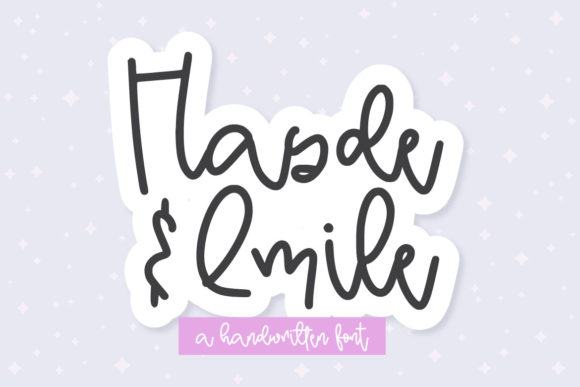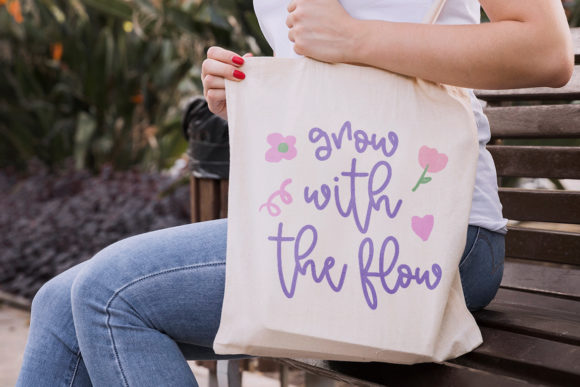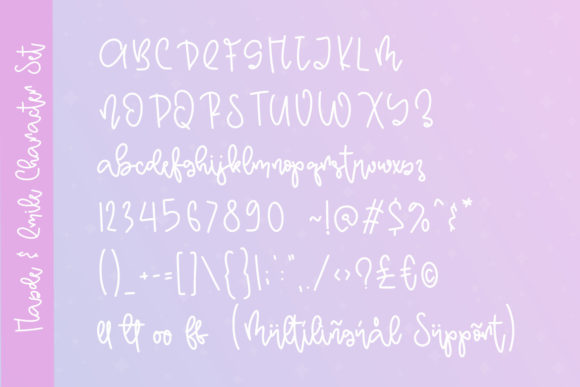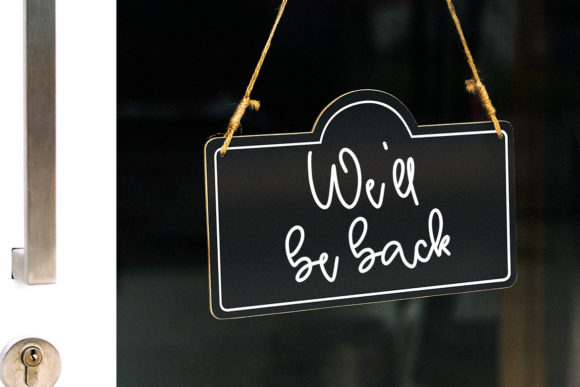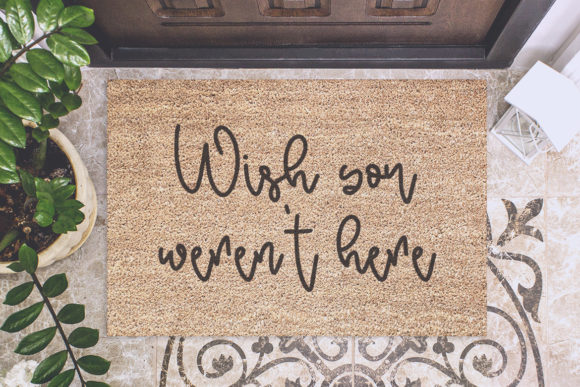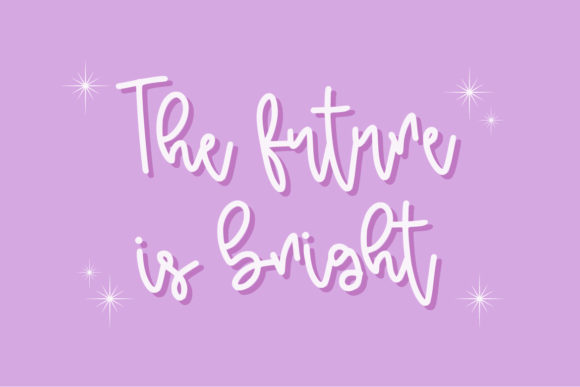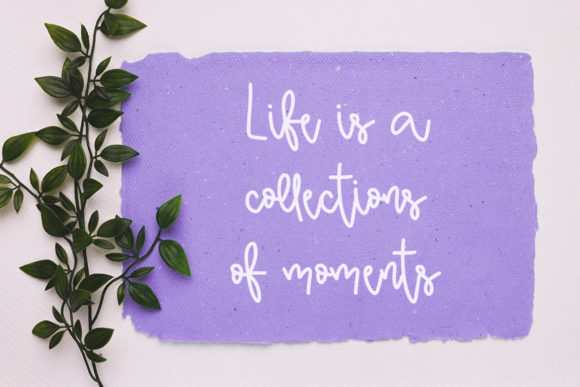
About Hayde & Emile Font
Hayde & Emile is an asymmetrical and quirky handwritten font. It looks neat on wedding invitations, thank you cards, quotes, greeting cards, logos, business cards and every other design which needs a customized touch.